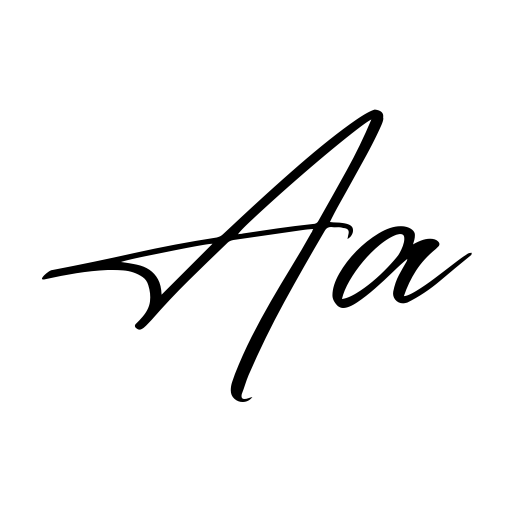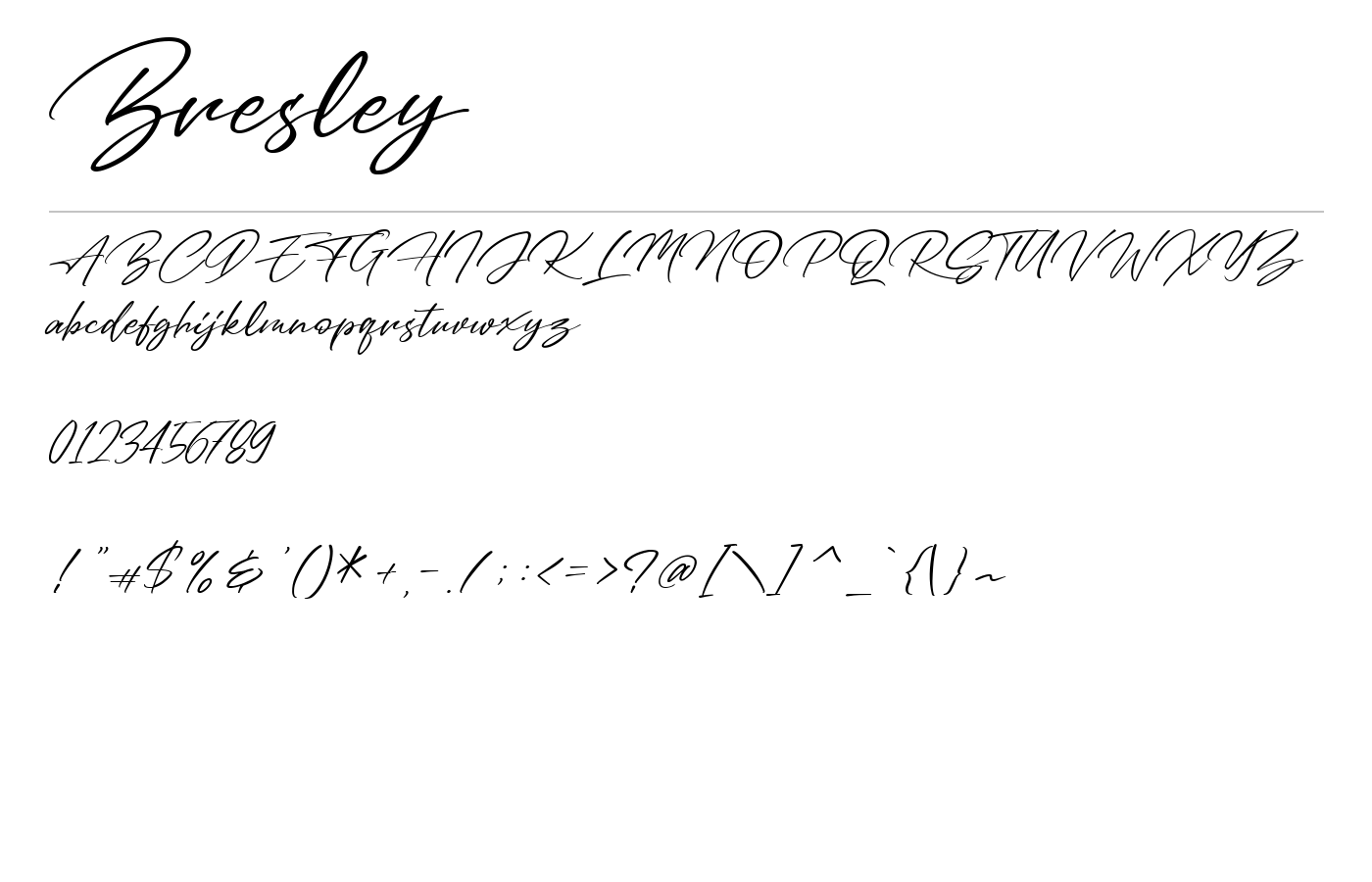
Bresley is an elegant and flowing script font that captures the natural beauty of modern calligraphy with its smooth, slender strokes and stylish, connected letterforms. Its lightweight design and graceful curves make it perfect for sophisticated branding, wedding invitations, and any project that benefits from a personal, refined touch. This font works especially well in logos and headlines where a chic, handwritten feel adds a sense of warmth and luxury.
Bresley Font
About Bresley Font
| Font family | Bresley Font |